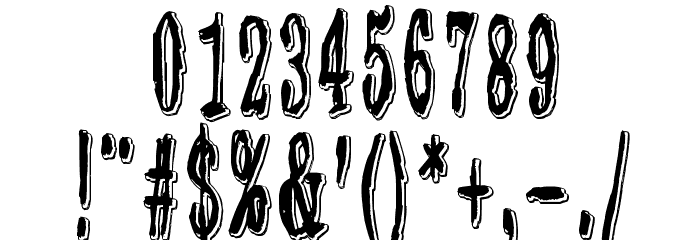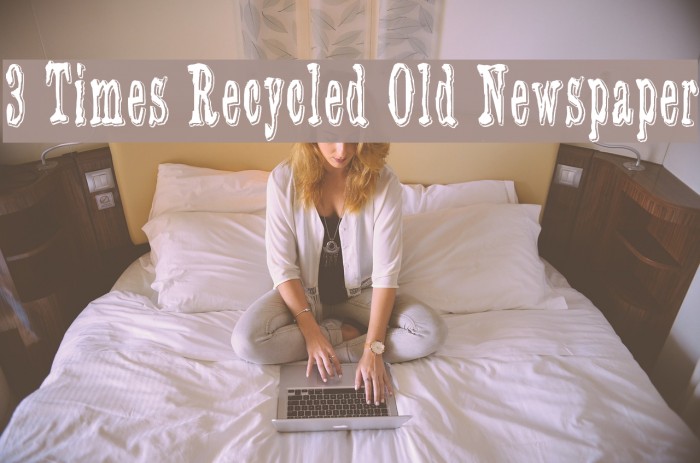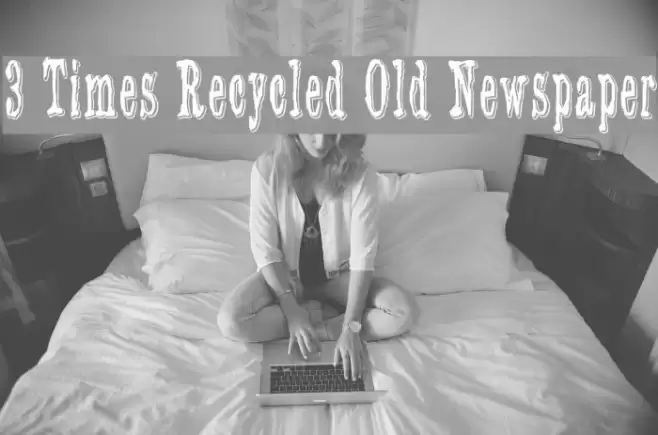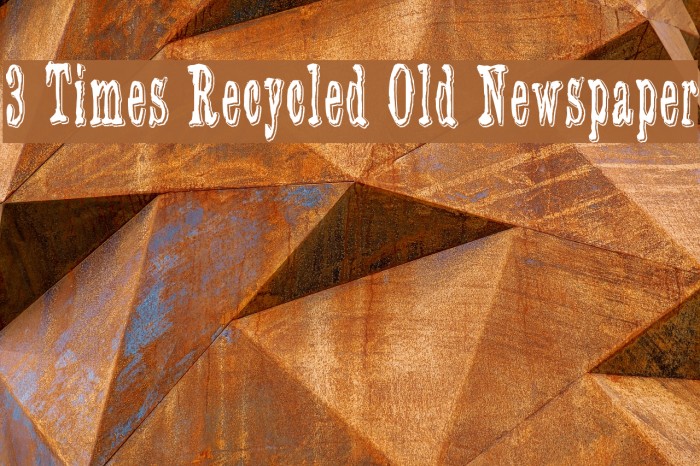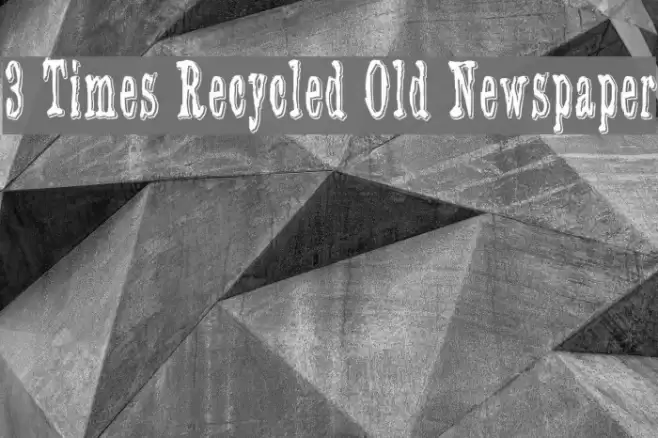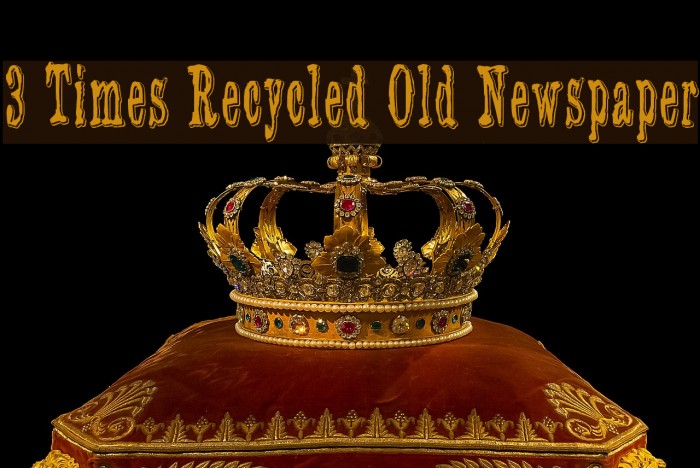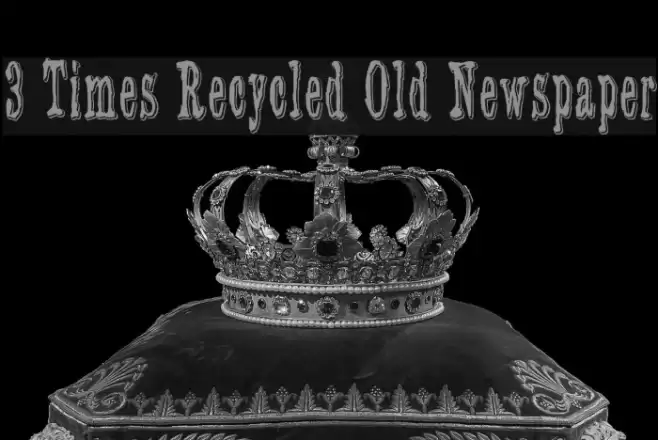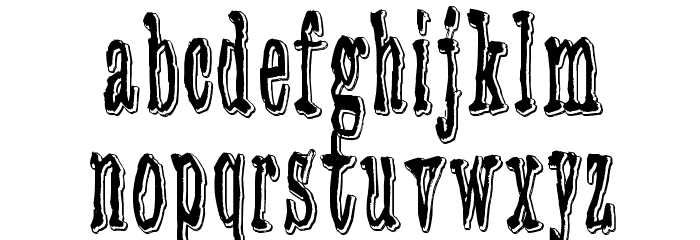
3 Times Recycled Old Newspaper Font
✎ Distorted Eroded
3 Times Recycled Old Newspaper Description
This font features a distressed, vintage style reminiscent of old newspaper print. The characters have a rough, textured appearance with uneven edges, giving them a hand-crafted feel. The uppercase and lowercase letters maintain a consistent style, with a slightly condensed form that adds to the retro aesthetic. Numbers and special characters follow the same design principles, ensuring a cohesive look across all glyphs. The font's unique charm lies in its imperfect, worn-out look, making it ideal for projects that require a touch of nostalgia or a rustic vibe.
| Width | Condensed |
| Overall Style | Vintage |
| Proposed Projects | Ideal for vintage-themed posters, retro branding, rustic packaging designs, and any project that requires a nostalgic touch. |